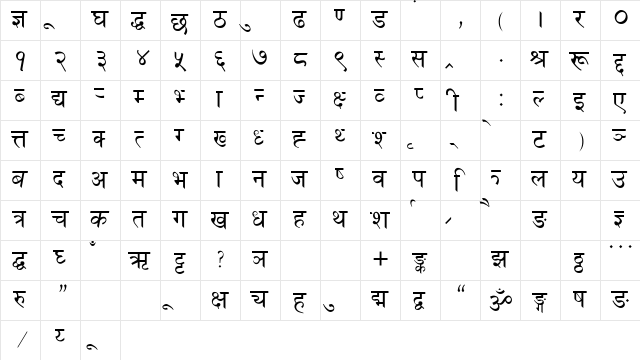
Nepali_DLS_I Italic
Design Context for Nepali_DLS_I Typeface
Nepali_DLS_I offers clean, dependable letterforms without strong stylistic allegiance, making it a practical choice for designers who need flexibility. Its italic angle brings a sense of urgency and motion to the letterforms.
Pro Tip: Try Nepali_DLS_I for annotation and caption copy alongside an upright companion — the contrast in angle creates a dynamic but ordered typographic system.